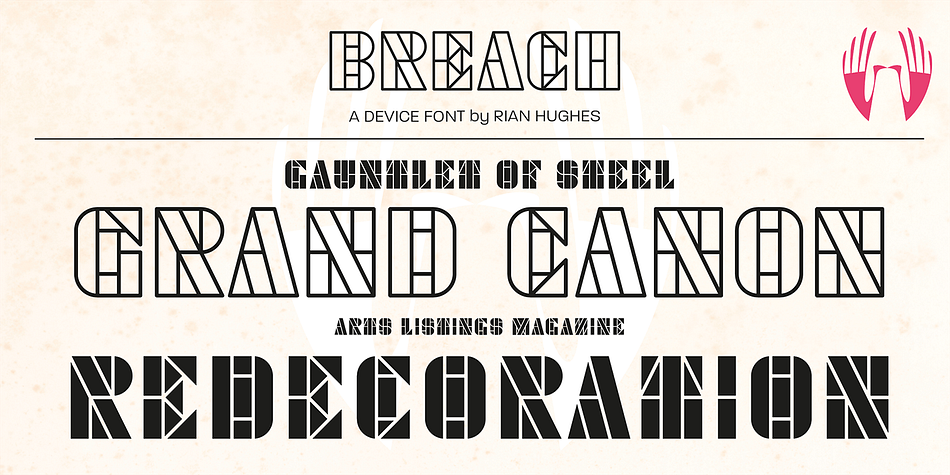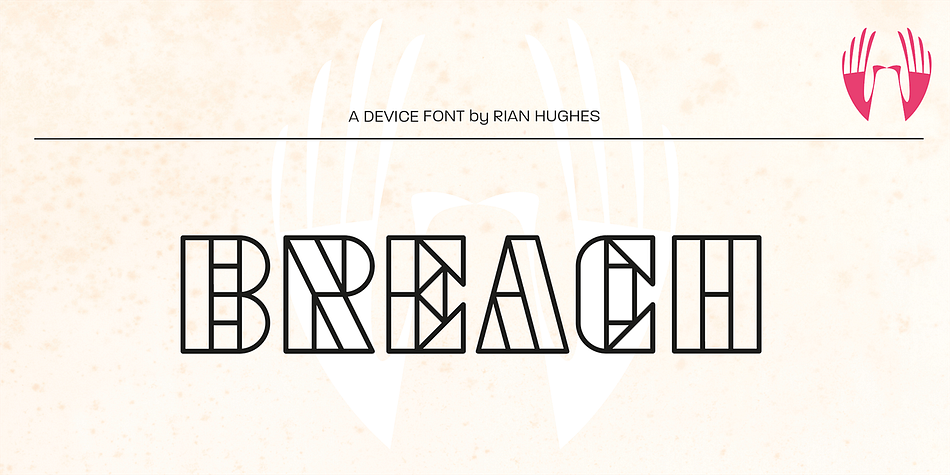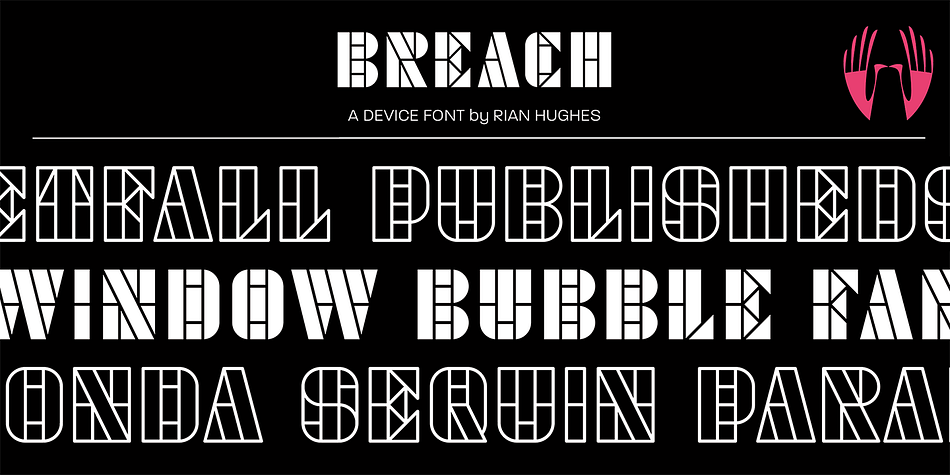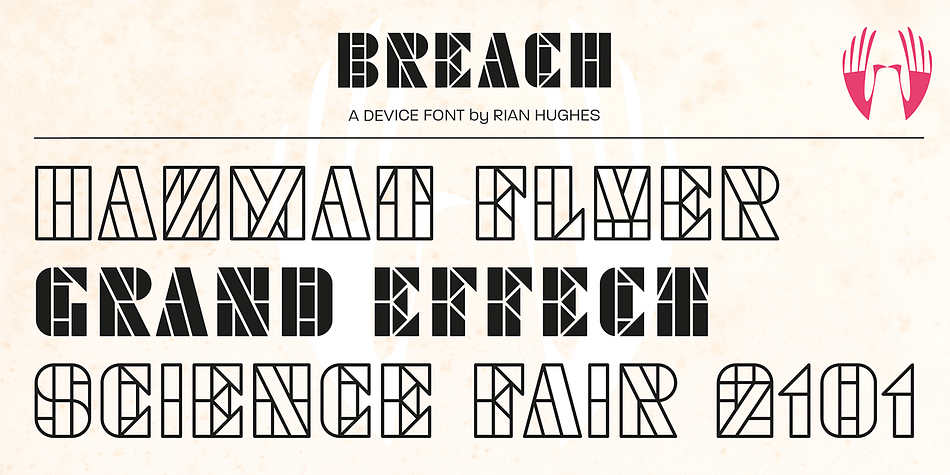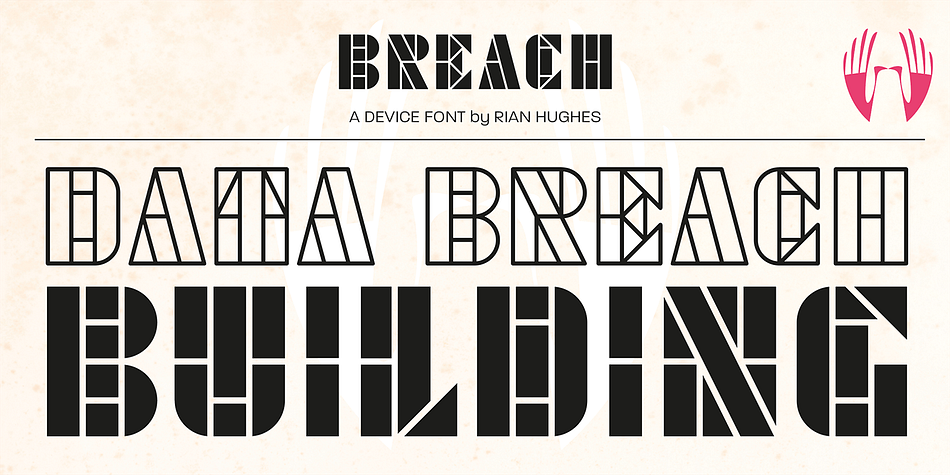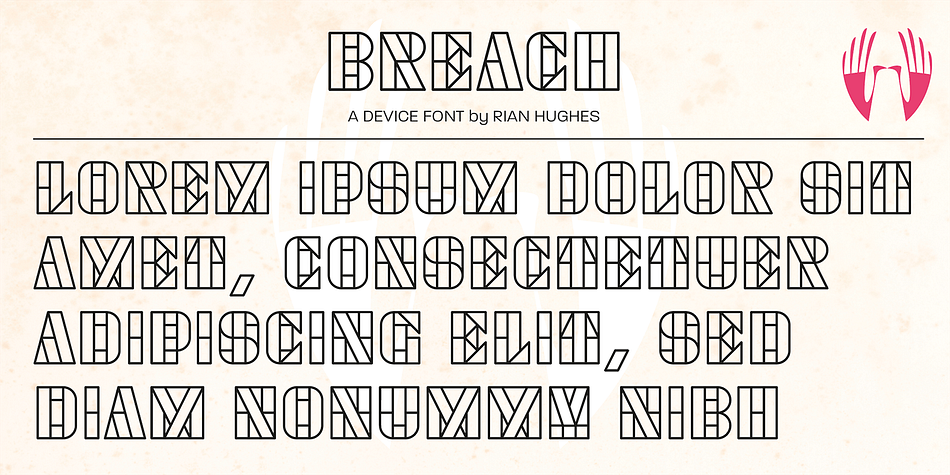
Designed by Rian Hughes, Breach is a display sans and stencil font family. This typeface has two styles and was published by Device.
Beach is a geometric stencil font in two variants. Powerful, futuristic and unique.